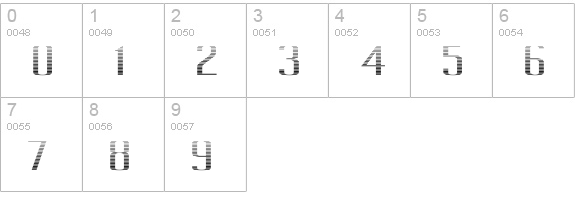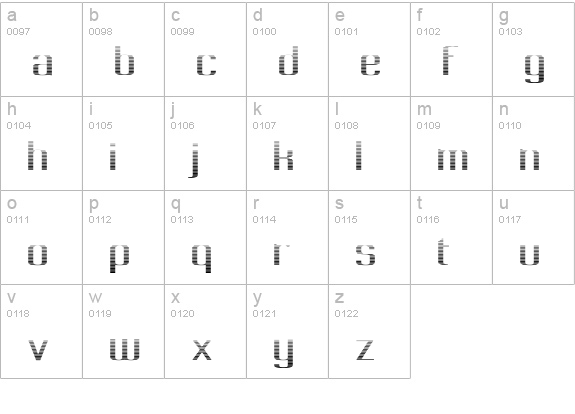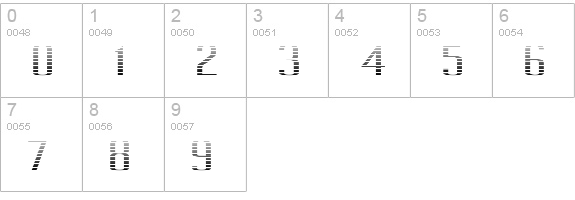
Introducing Pecot Lined, a captivating and versatile font that adds a touch of elegance and sophistication to any design project. This exquisite typeface is designed with utmost attention to detail, carefully crafted to bring forth a unique combination of modernity and classic appeal. Pecot Lined is perfect for those seeking a font that exudes timeless beauty and professionalism, making it an ideal choice for a wide range of design applications. Whether you're working on branding, advertising, packaging, or any other creative endeavor, this font will effortlessly elevate your work and leave a lasting impression. With its sleek and refined lines, Pecot Lined captures attention and creates a sense of visual harmony. Its clean and legible characters make it suitable for both large display text and smaller body copy, ensuring readability in any context. But what sets Pecot Lined apart from other fonts is its availability. Yes, you heard it right – this remarkable font is absolutely free! You can easily download Pecot Lined from FontsMarket.com, a trusted source for high-quality fonts. This means that you can enjoy all the benefits of this exceptional typeface without spending a dime. So why wait? Enhance your next project with the elegance and versatility of Pecot Lined. Download it for free from FontsMarket.com and let your creativity soar to new heights.